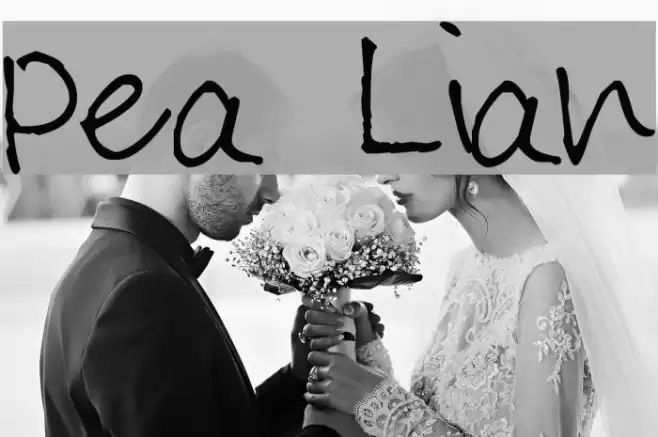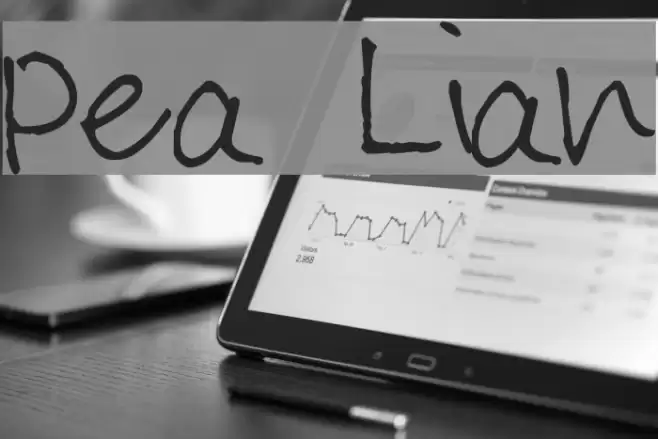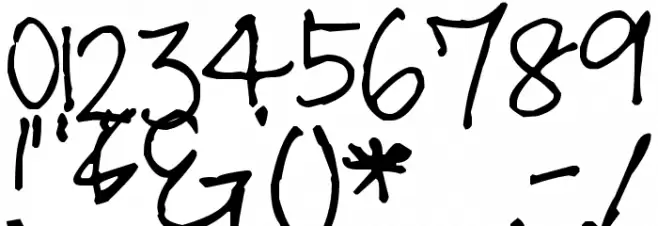
Pea Lian Font
Pea Lian Description
This font exudes a playful and casual handwritten style, characterized by its loose and informal strokes. The letters are unevenly sized, with a natural flow that mimics the spontaneity of handwriting. The uppercase letters are bold and slightly irregular, while the lowercase letters maintain a consistent, yet relaxed form. Numbers and special characters follow the same handwritten aesthetic, adding to the font's charm. The overall appearance is approachable and friendly, making it suitable for projects that require a personal touch.
A playful, casual handwritten font with a friendly and informal style from Uncategorized fonts.
- Proposed Projects: Ideal for personal notes, greeting cards, children's books, and informal branding.
- Overall Style: Casual
- Use Case: Greeting cards, Personal notes, Informal branding